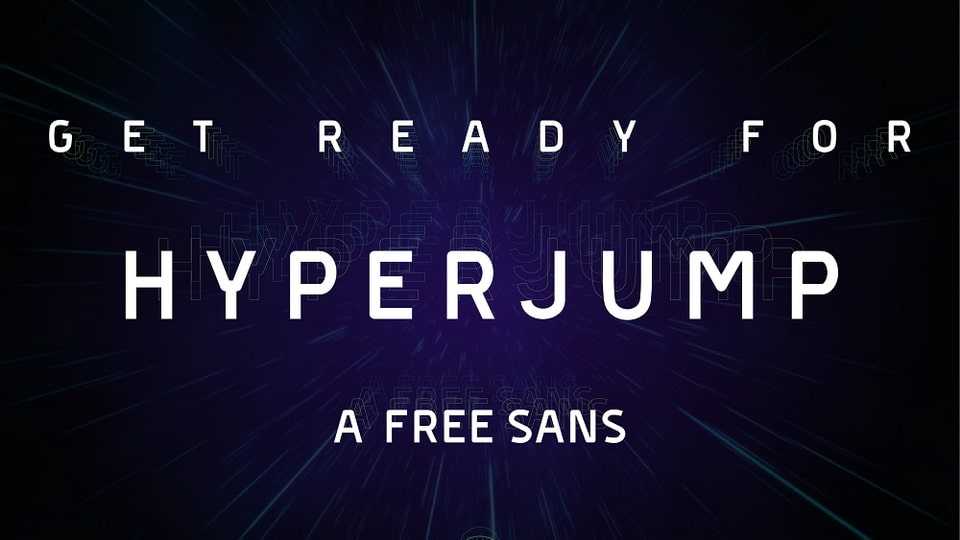
Download Huperjump font, a modern sans serif typeface focused on futuristic, space and high tech theme. Huperjump typeface is suitable for games, apps, web design and any display use.
Designer: Toufique Islam